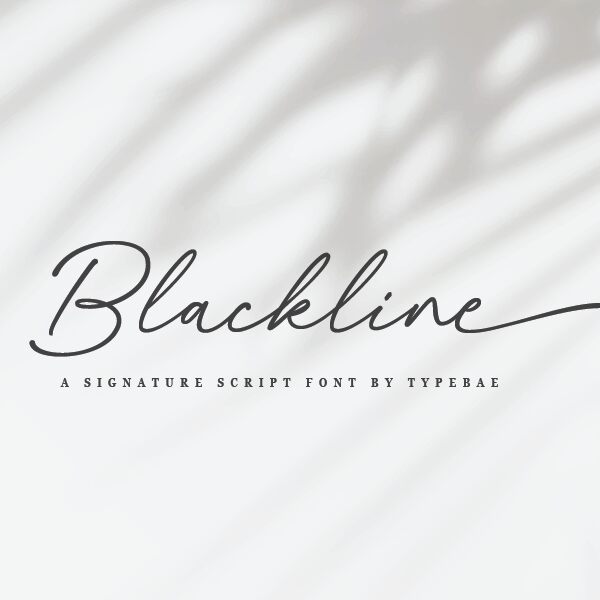
Blackline
Blackline font by Typebae Foundry is a handwritten light font where elegance meets fluidity. Its modern script style exudes casual sophistication, making it a versatile typeface for various design projects. This delicate yet impactful font can seamlessly elevate your creative endeavors with its gentle and refined appearance.
Some use cases include logos, branding designs, business cards, product labels, print designs, greeting cards, book covers, magazine designs, social media visuals & banners. Other uses are package design and advertising materials in general. Blackline’s free use gives designers endless possibilities and flexibility at no cost!